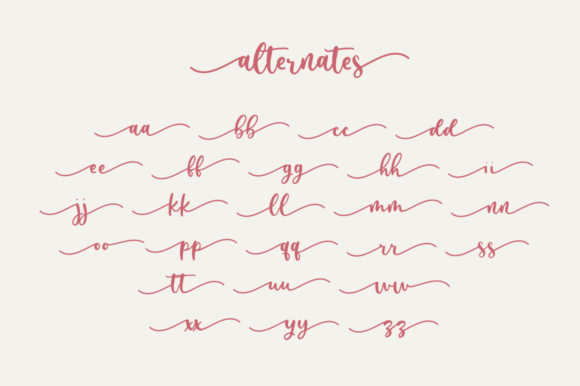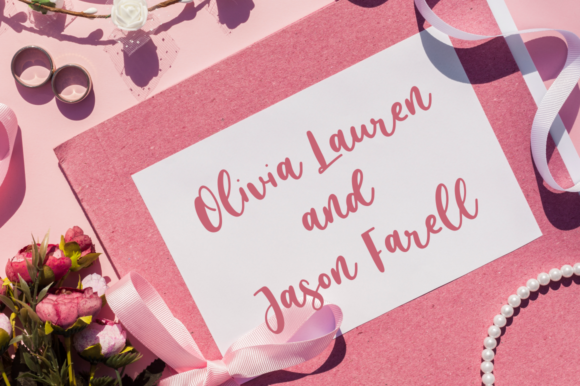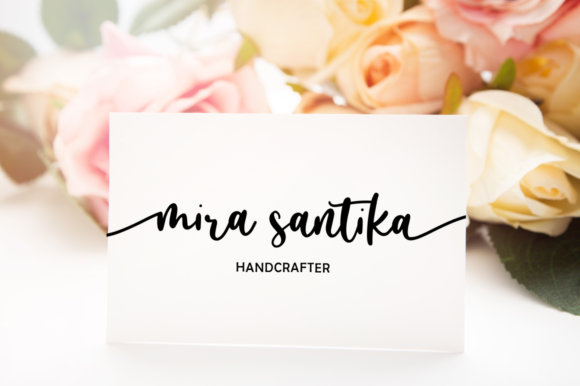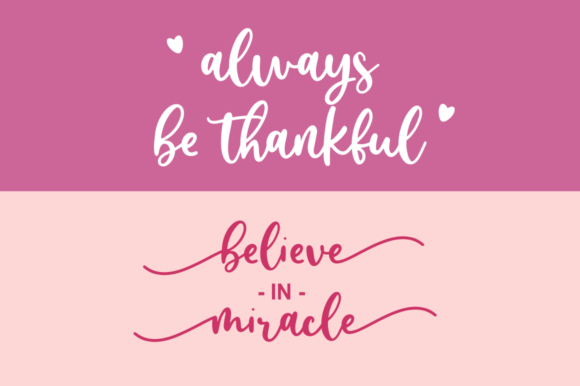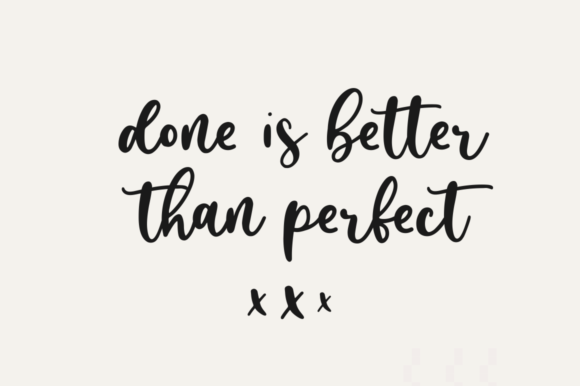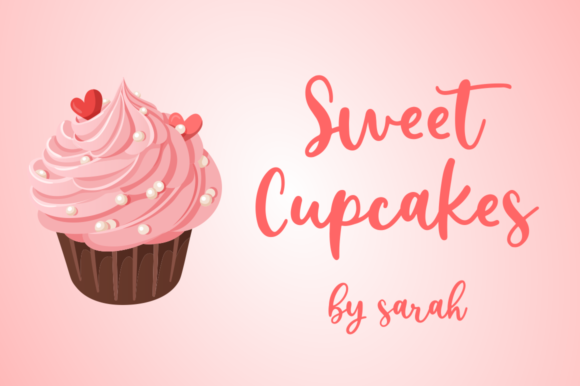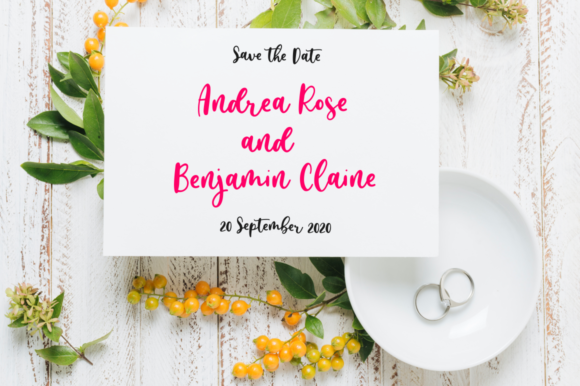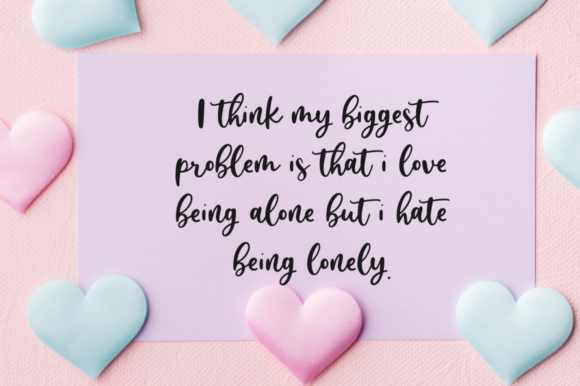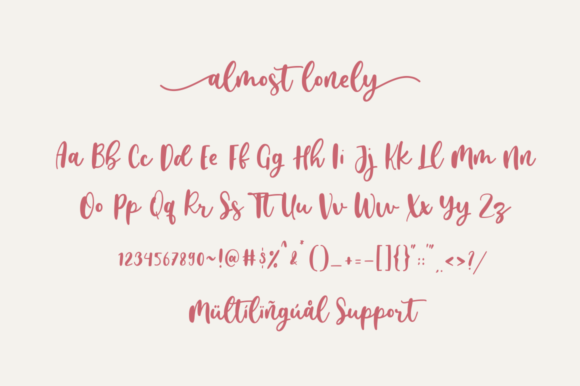
Almost Lonely Font
About Almost Lonely Font
Almost Lonely is a sweet and beautiful script font. Get inspired by its authentic feel and use it to create gorgeous wedding invitations, beautiful stationary art, eye-catching social media posts, and cute greeting cards.